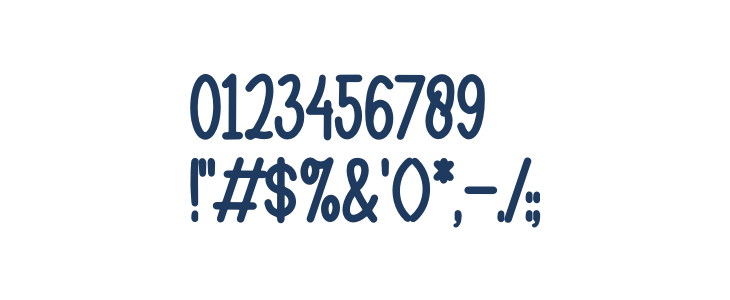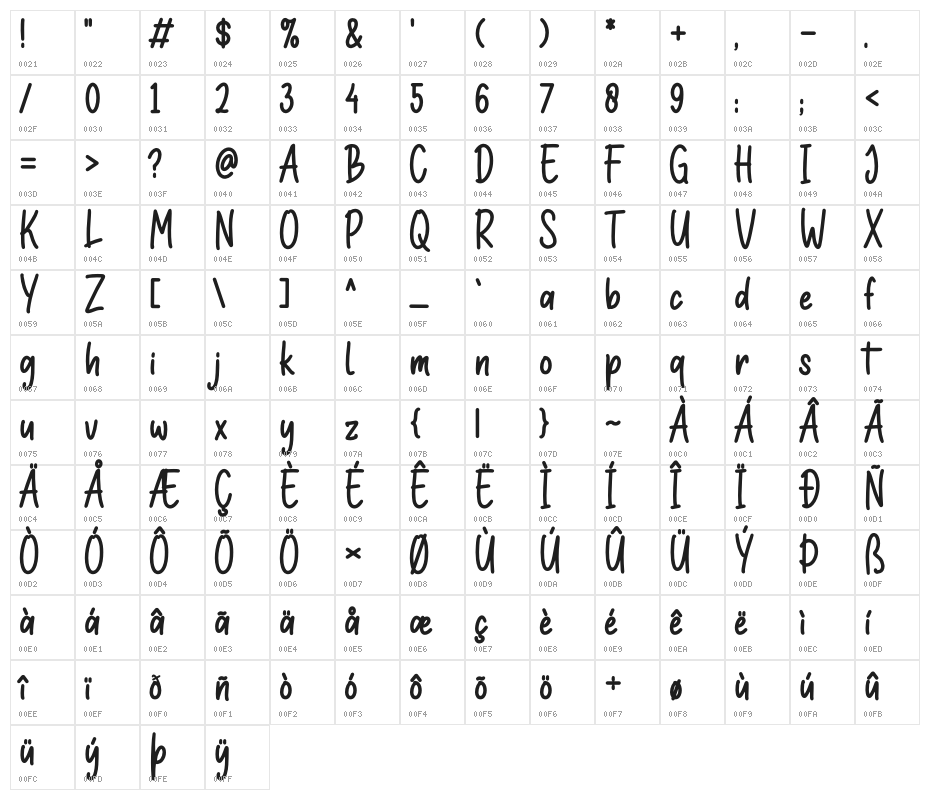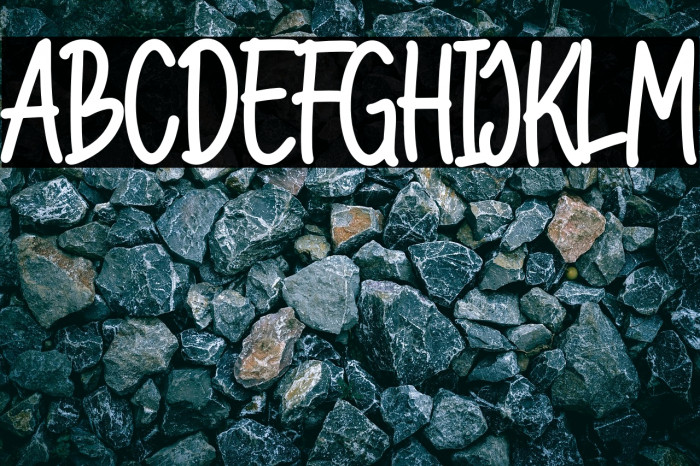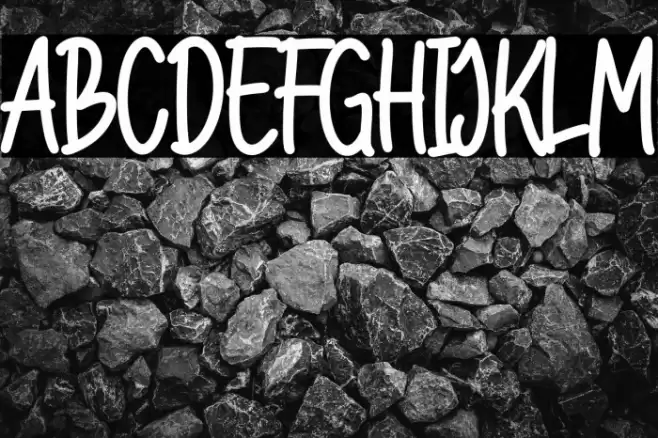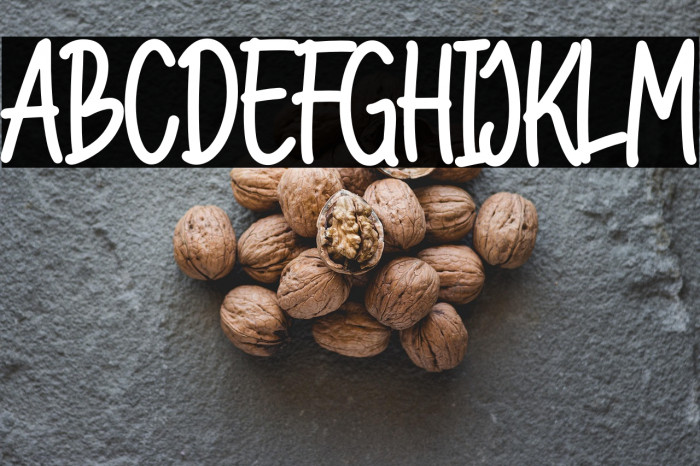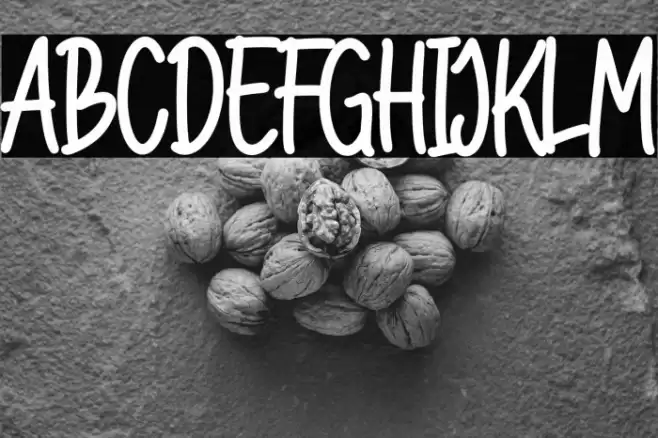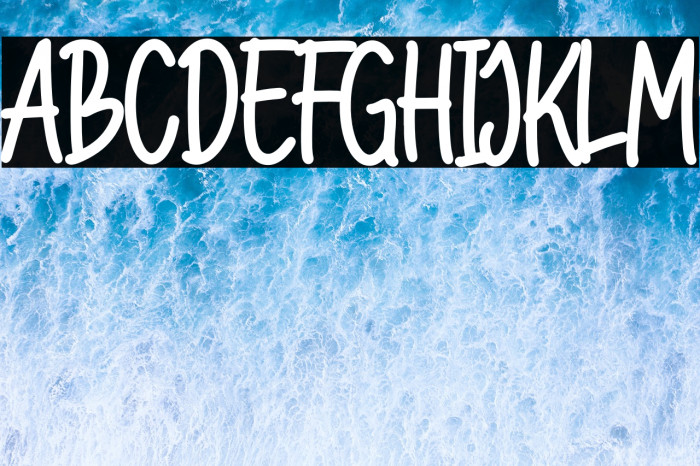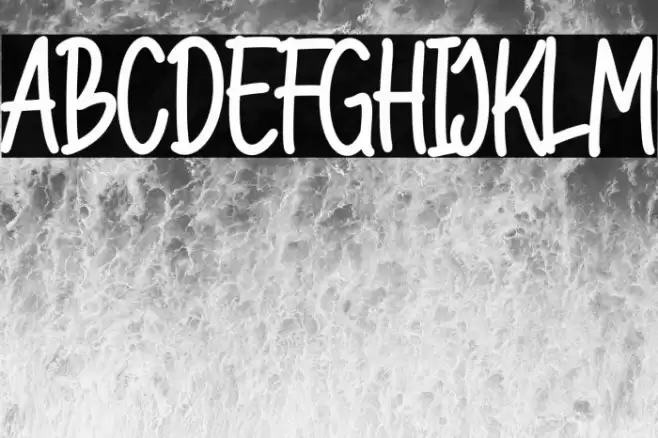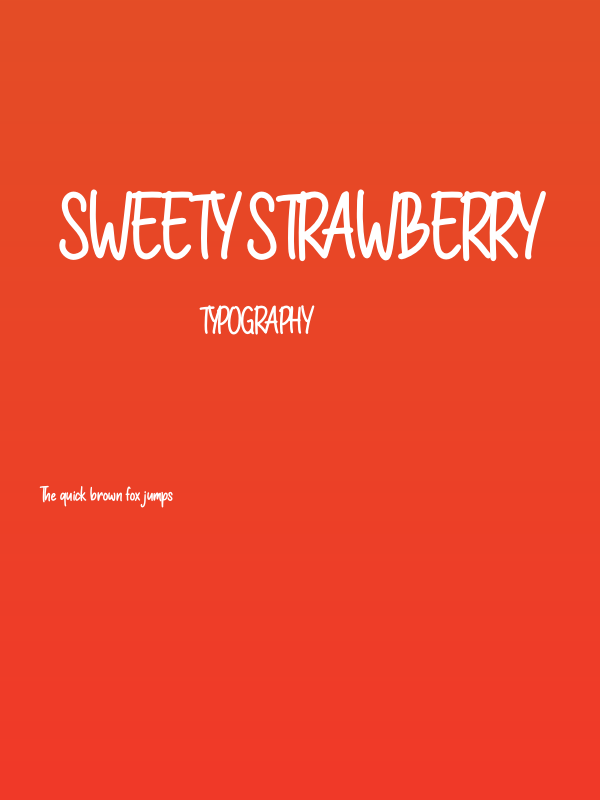
Sweety Strawberry Font
Sweety Strawberry Description
This playful and whimsical font features a handwritten style with a bold and rounded appearance. The characters are slightly irregular, giving it a casual and friendly vibe. The uppercase letters are tall and narrow, while the lowercase letters are more rounded and compact. Numbers and special characters maintain the same playful aesthetic, making it versatile for various creative projects. The font's informal style is perfect for adding a personal touch to designs, making it ideal for invitations, greeting cards, and playful branding.
| Proposed Projects | Great for invitations, greeting cards, playful branding, and children's book covers. |